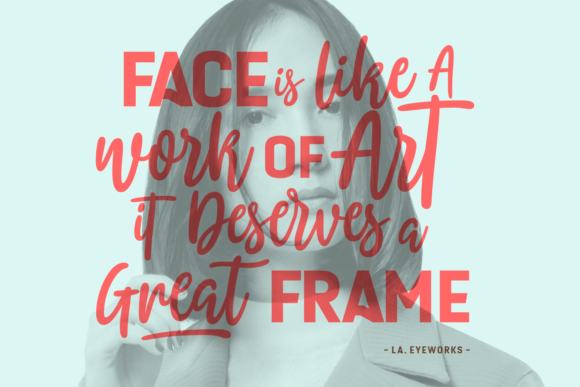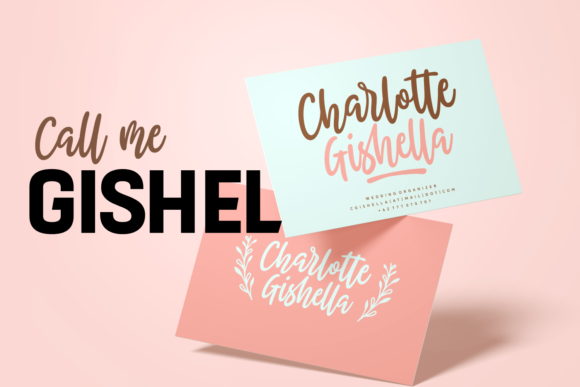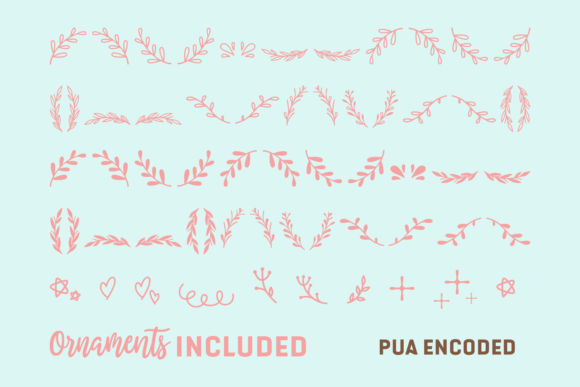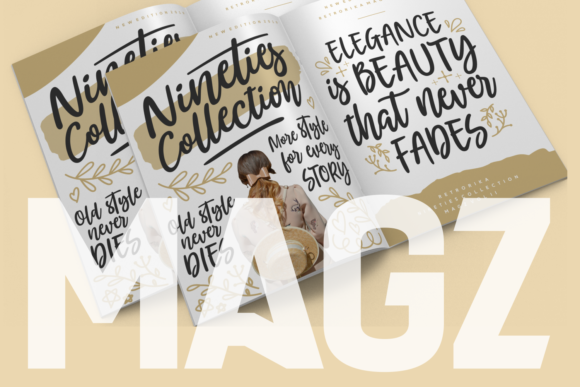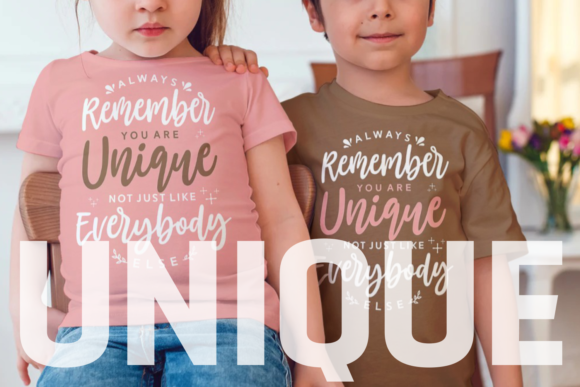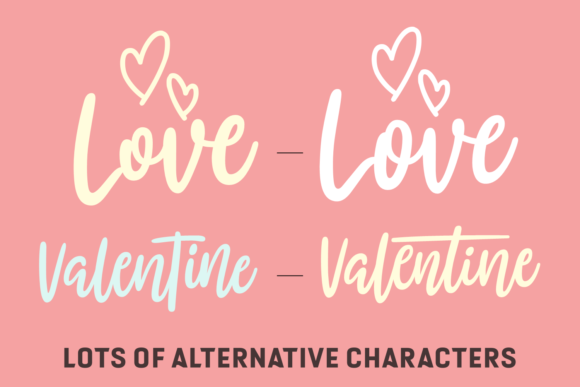
The Designer’s Delight: Feeling Homazing Font
Ah, the quest for the perfect font! I still remember the time I was working on a project, pouring my heart and soul into it, but somehow, it just didn’t feel complete. The design was sleek, the colors were on point, but the font I had chosen just wasn’t doing it for me. It was like the icing on the cake was, well, just a bland frosting. That’s when I stumbled upon the Feeling Homazing Font. It was like a breath of fresh air! A modern smooth script font that seemed to elevate my entire design. In this article, I’ll share my love for this font, its features, and how you can make the most of it in your designs.
So, what makes Feeling Homazing Font so special? Let’s dive into the good stuff and, of course, a few quirks I’ve noticed.
- ✨ Smooth and Modern Look: The font boasts a sleek, modern appearance that’s perfect for a wide range of projects, from branding to invitations.
- ✅ Highly Legible: Even at smaller sizes, Feeling Homazing remains clear and easy to read, making it versatile for various applications.
- 💫 OpenType Features: This font comes with a range of OpenType features, including stylistic alternates and glyphs, which allow for a high degree of customization.
While Feeling Homazing Font is incredibly versatile, there are a few things to keep in mind:
- 🤔 Script Fonts Can Be Overwhelming: As with any script font, it can be easy to overuse it. Make sure to balance it with other font styles for a cohesive look.
Exploring Alternatives: 4 Fonts Similar to Feeling Homazing
While Feeling Homazing Font is undoubtedly captivating, it’s always good to have alternatives. Here are four fonts that share a similar vibe and when you might consider using them:
- Pacifico: A beautiful, modern script font perfect for designs that require a bit of elegance and fluidity. Use it for branding, logos, or social media graphics.
- Great Vibes: This font exudes a sense of fun and playfulness, making it ideal for creative projects like invitations, posters, or DIY crafts.
- Alex Brush: With its elegant strokes and classic feel, Alex Brush is great for more traditional or sophisticated designs, such as wedding invitations or formal event branding.
- Allura: A lovely, elegant script font suitable for designs that need a touch of sophistication. It’s perfect for business cards, menus, or high-end product labels.
The Story Behind Feeling Homazing Font
Ever wonder how fonts come to life? While the actual story behind Feeling Homazing Font might not be widely documented, it’s easy to imagine a designer with a passion for smooth, modern scripts creating this font. Perhaps they were on a mission to craft a typeface that was both elegant and accessible, suitable for a wide array of creative projects. Whatever the inspiration, Feeling Homazing Font has undoubtedly made its mark on the design community.
Q: What makes Feeling Homazing Font unique?
A: Its smooth, modern appearance and extensive OpenType features make it versatile for various design projects.
Feeling Homazing Font is more than just a typeface; it’s a design element that can elevate your projects with its smooth, modern appeal. With its range of OpenType features and high legibility, it’s an excellent choice for designers, crafters, and creative hobbyists alike. Whether you’re creating branding materials, invitations, or digital content, Feeling Homazing Font deserves to be in your design toolkit.